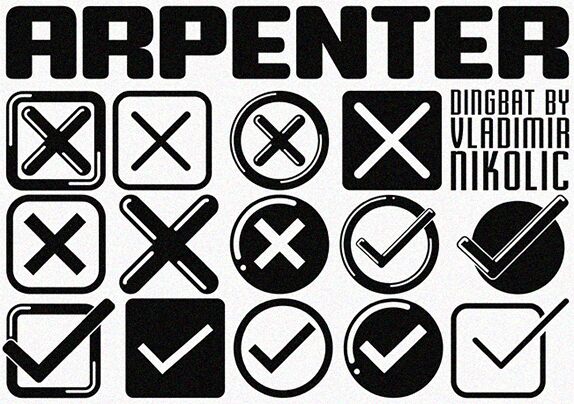
Arpenter Regular
Arpenter font from Vladimir Nikolic finds its inspiration in building and construction. Each letter is designed to reflect a specific material that you’d usually find within a house. Build up your words with the bricks, roofing tiles, wood blocks, etc., and combine more than one material to design an incredible solid display for your fans.
Offering uniform thickness, this geometric style is neat and modern – an impressive addition to the world of fonts. Use it in signage, print covers, quotes presentation websites design intros, or even video editing.